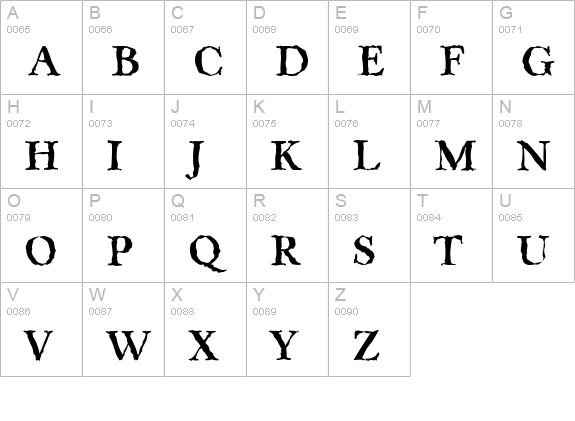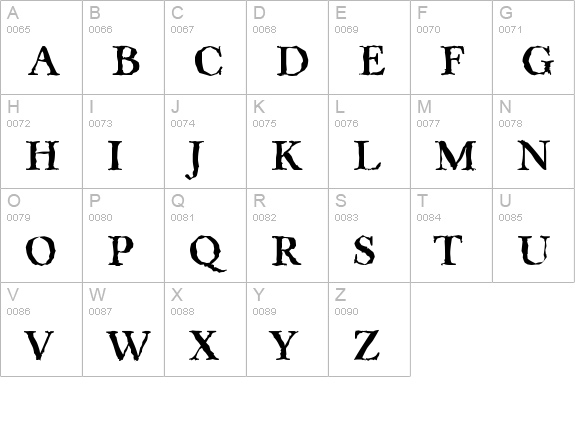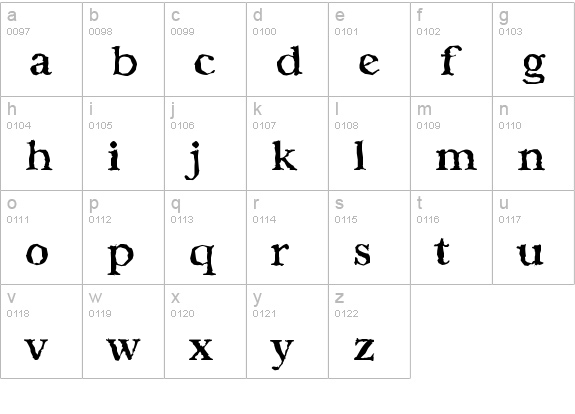
CasablancaRandom-Medium-Regular Font Details
CasablancaRandom-Medium-Regular is a balanced, medium-weight variant in the CasablancaRandom typeface family \xE2\x80\x94 well suited to sub-headlines, navigation, and balanced editorial work.